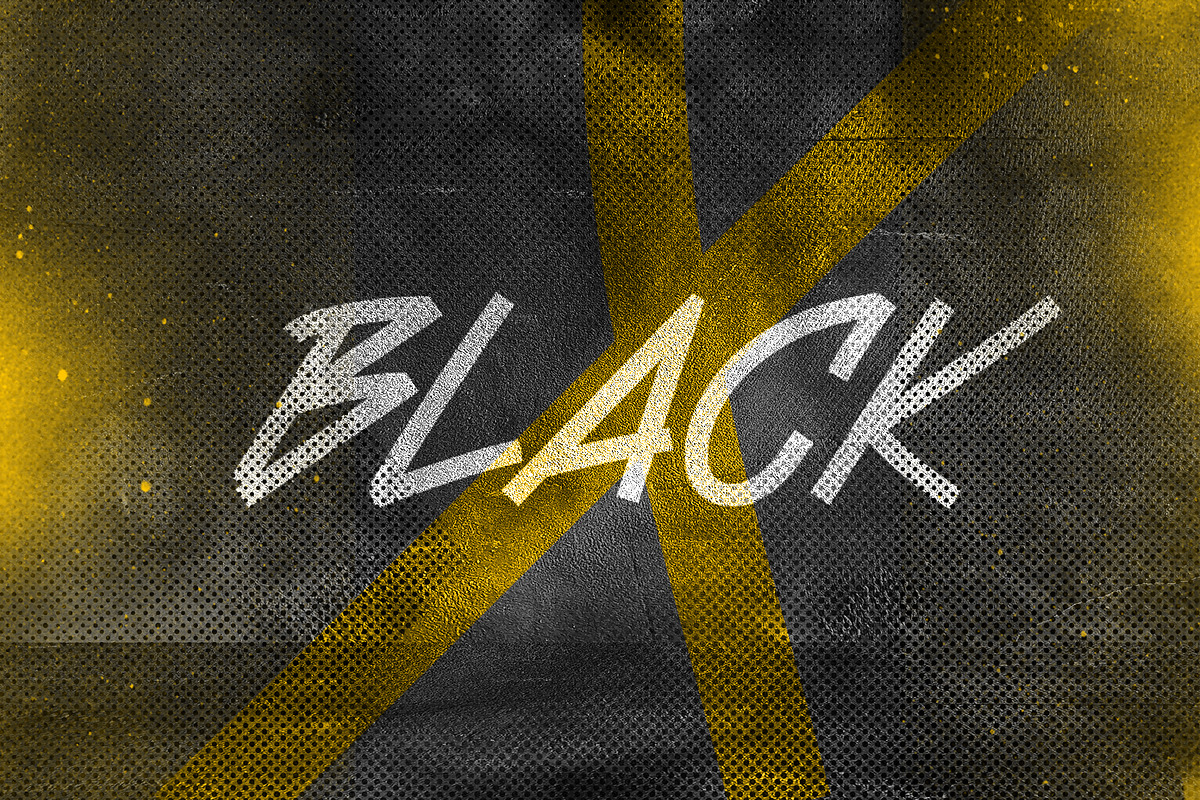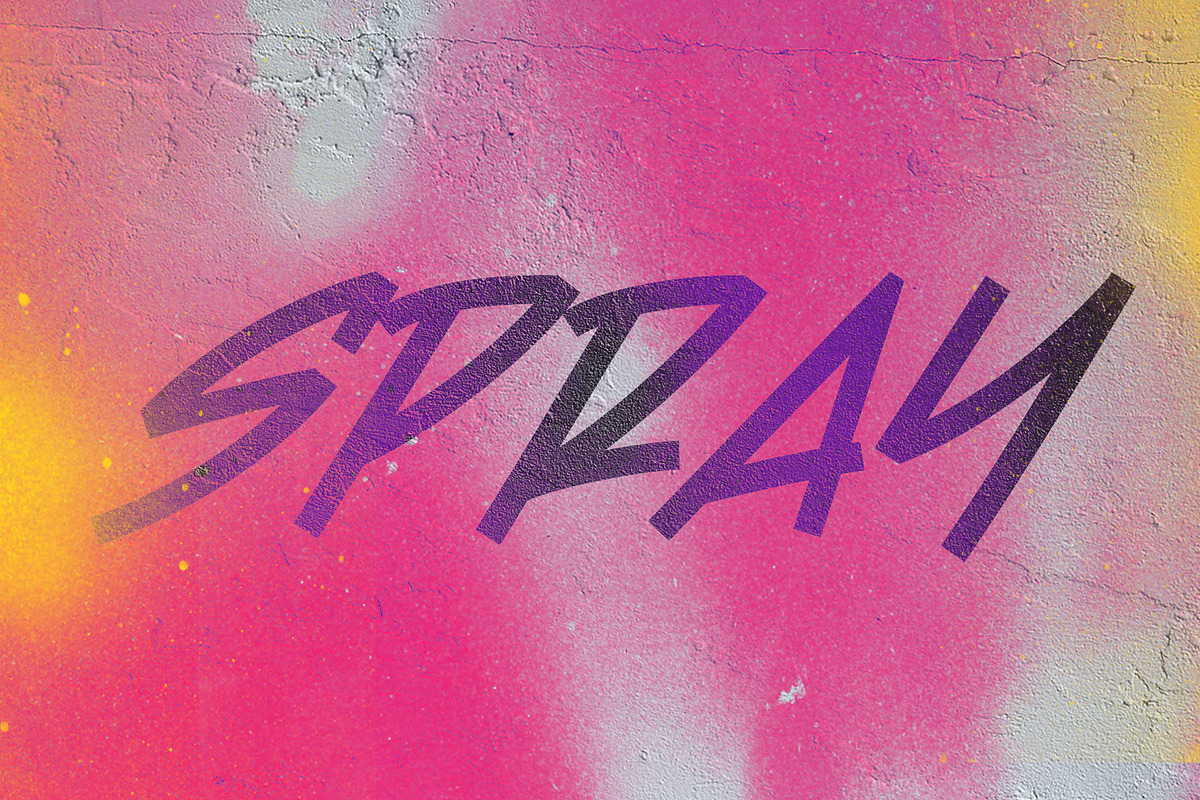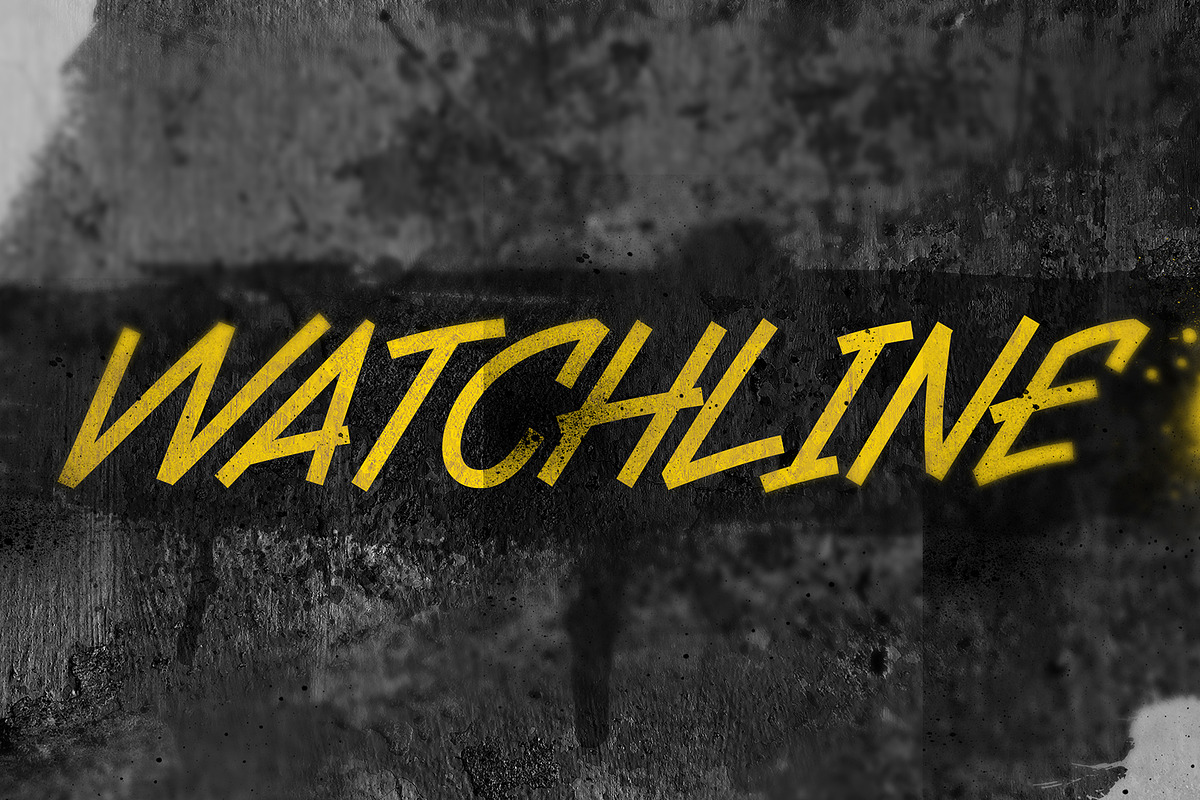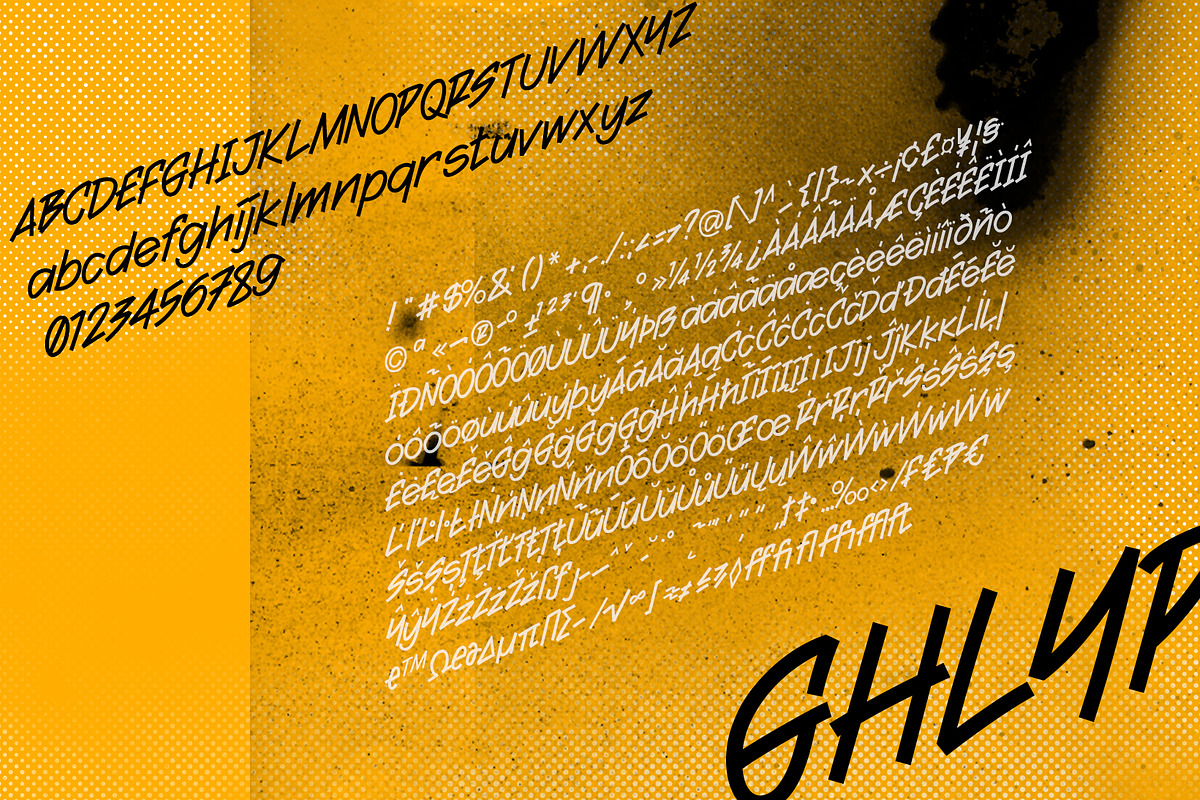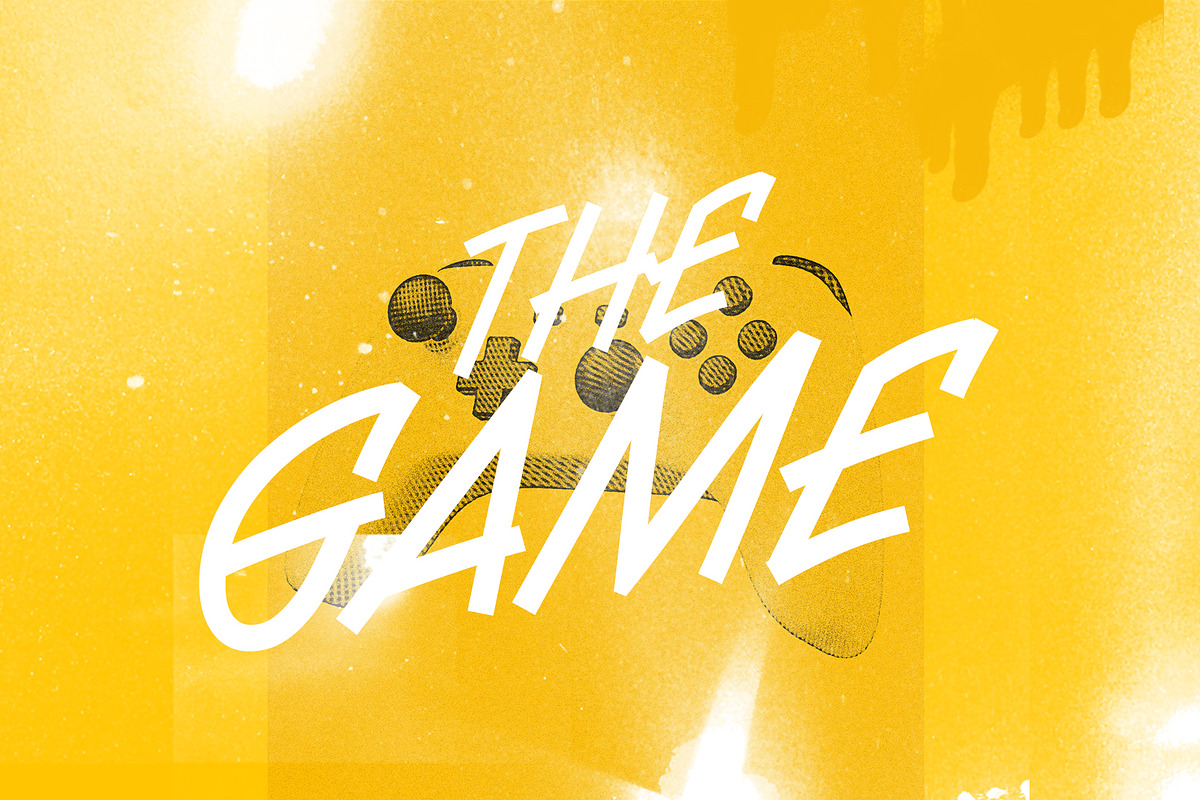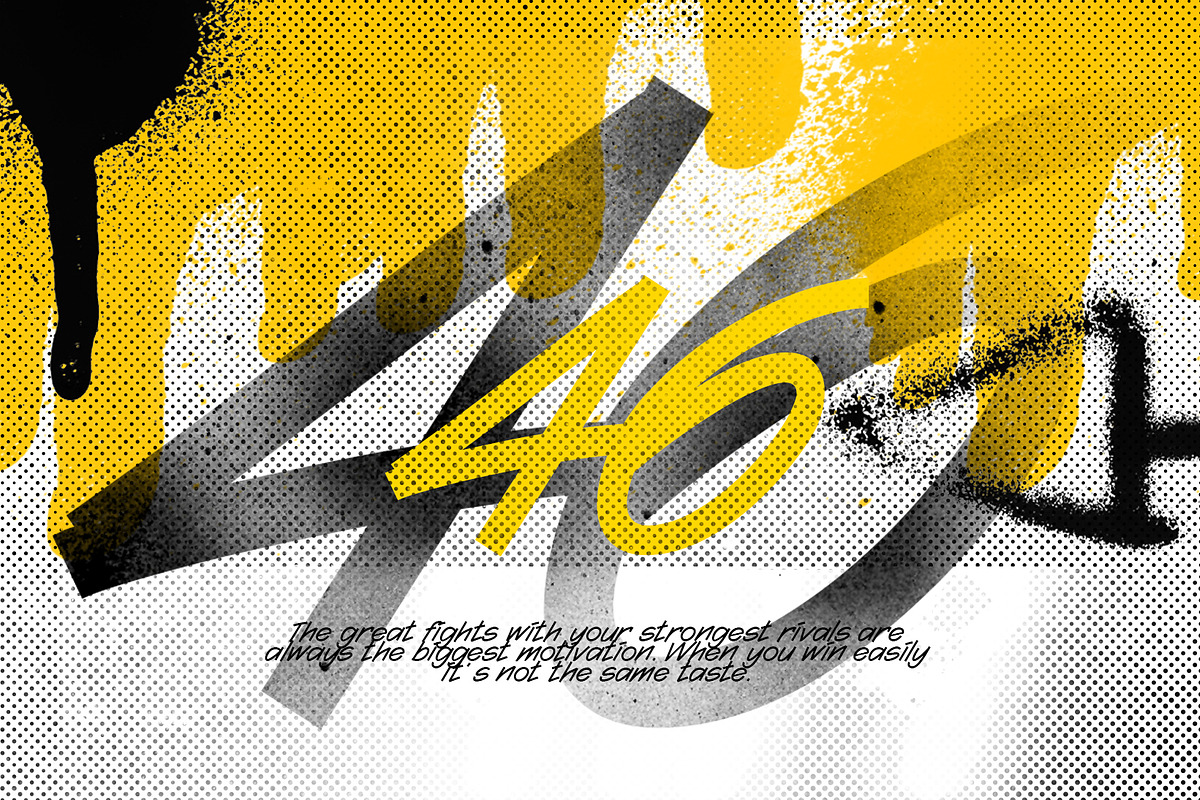
Watchline
Watchline is a font that inspired by graffiti but it comes with some modification on its style that simplified the shape and the line, this typeface is suitable for everyday use, personal or commercial work. It would be better for display, headline or poster.